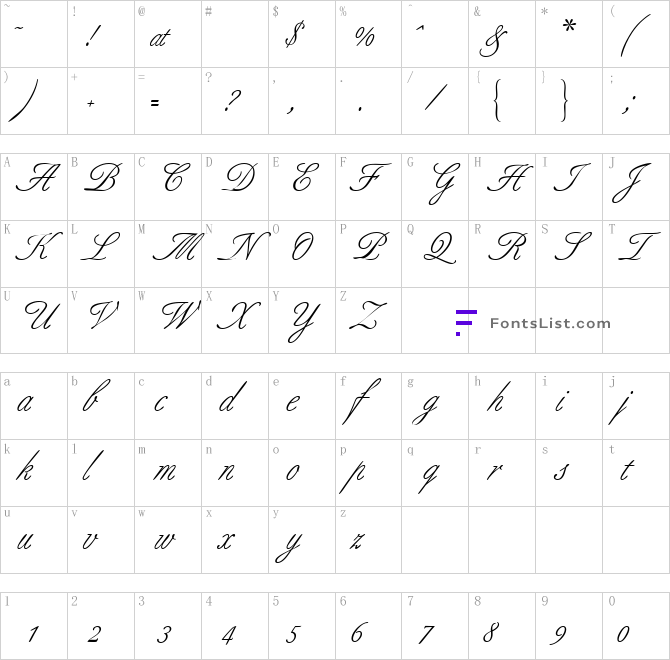
- Font Name:Allure Script
Allure-Script.ttf is a very beautiful artistic font, Allure-Script.ttf is widely used in the design and printing of various books and pictures,Allure-Script.ttf has a strong visual impact,Allure-Script.ttf is a commonly used font in newspapers, magazines and books, and is used in posters, e-commerce Poster design, store design, logo design, font design and other fields.Allure-Script.